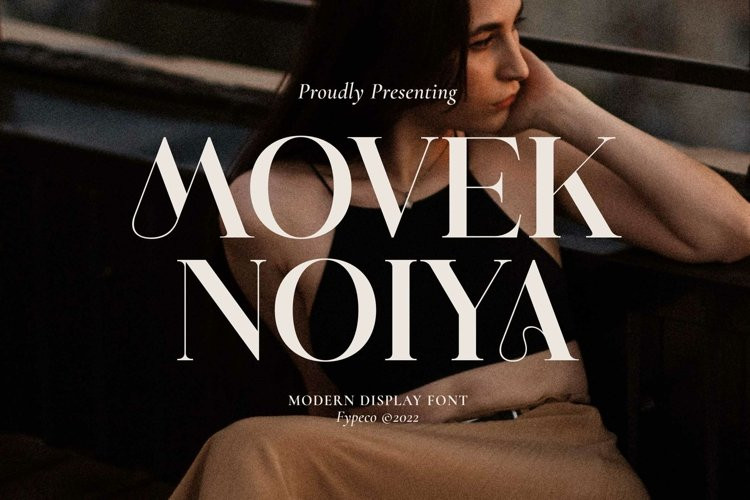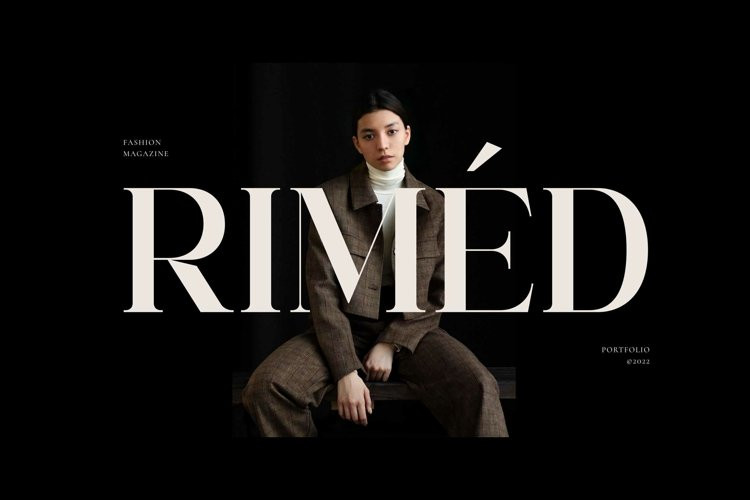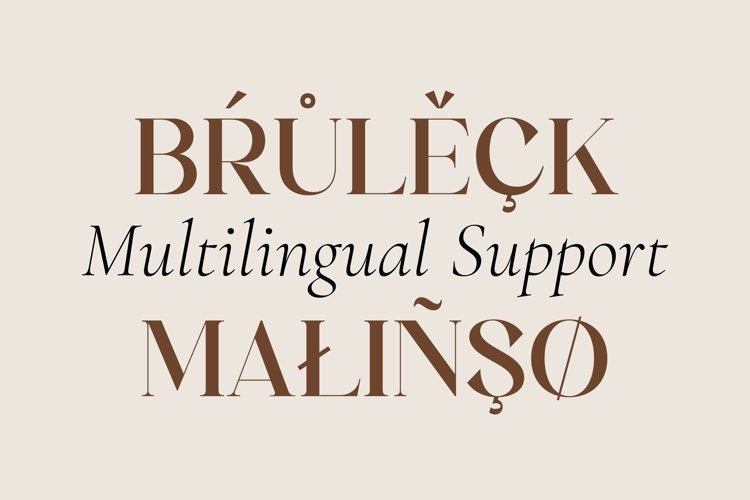
Movek Noiya Font
Movek Noiya FontMovek Noiya is modern serif display font with alternatives and ligatures. Movek Noiya will be great for any branding project. Lot of alternates and ligatures will help you to create unique and original logo design or website header! Movek Noiya comes with multilingual support also.